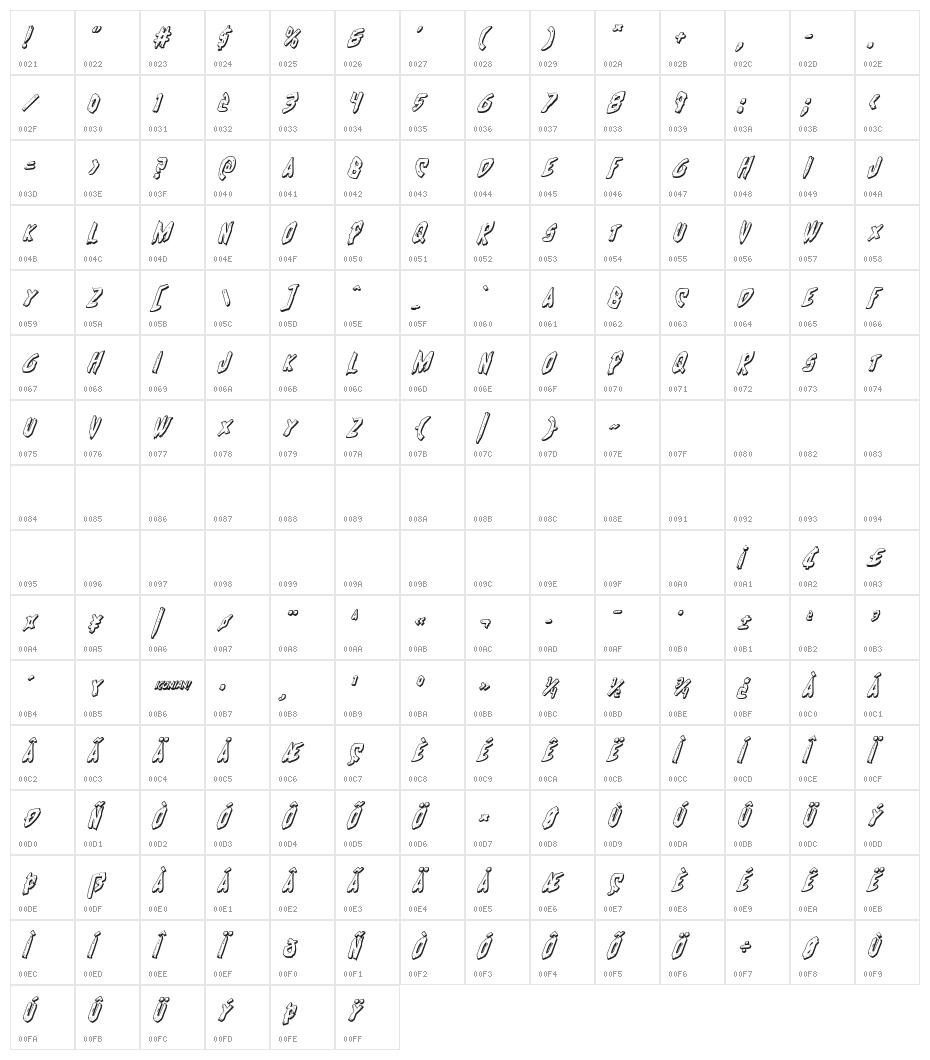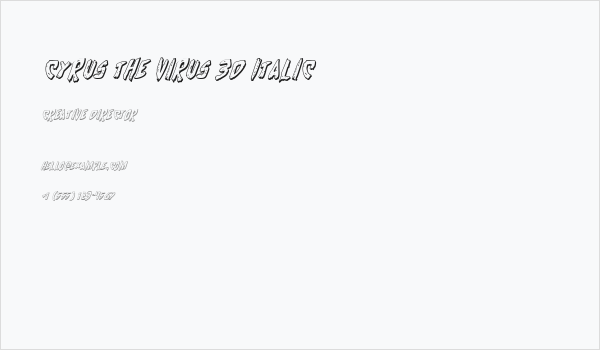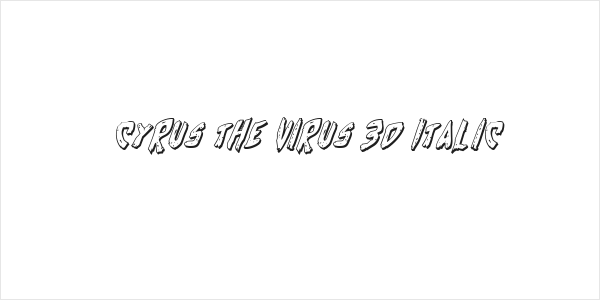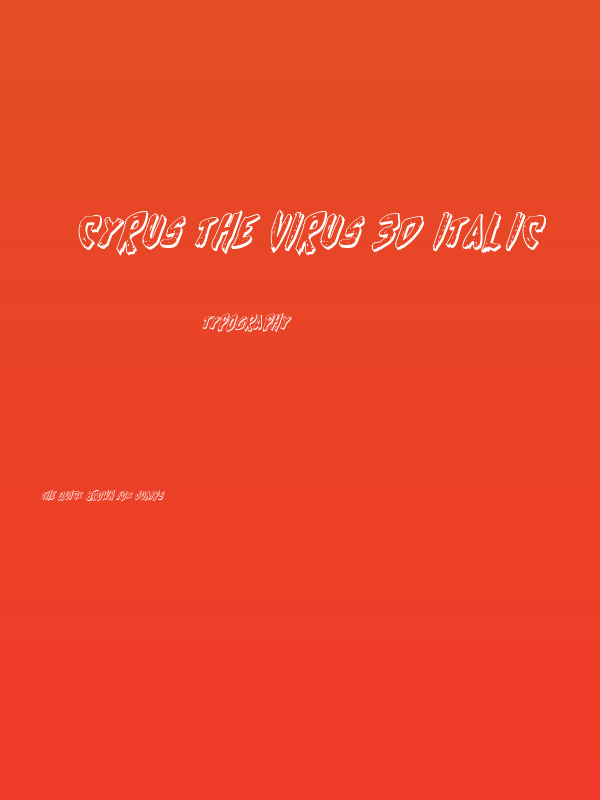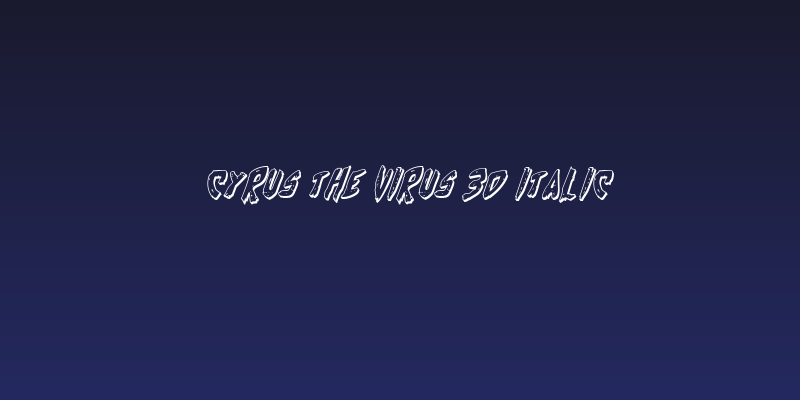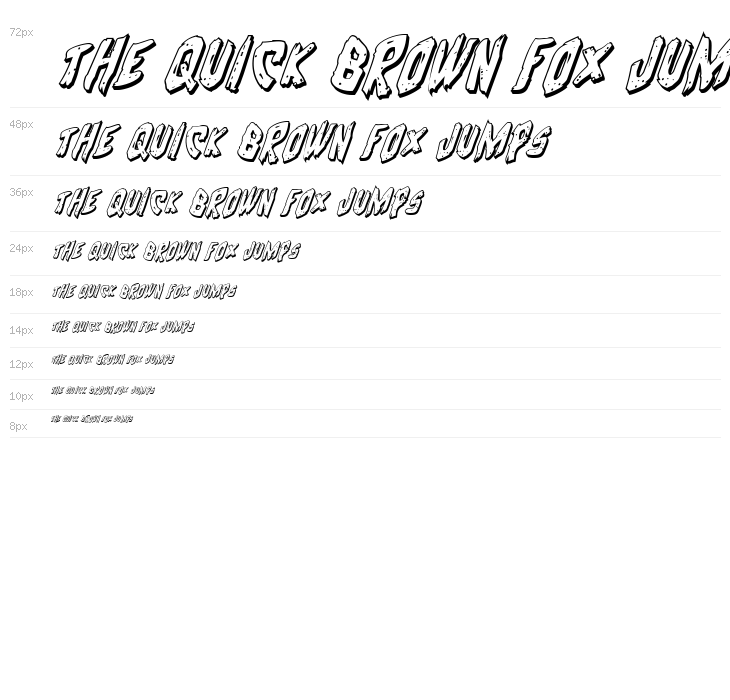
Cyrus the Virus 3D Italic Font
Cyrus the Virus 3D Italic Description
This font features a bold and dynamic 3D effect, giving each character a sense of depth and movement. The italicized style enhances its energetic and edgy appearance, making it stand out with a graffiti-like flair. The letters are slightly slanted, adding to the sense of motion and urgency. The rough, textured edges contribute to a rugged and rebellious aesthetic, perfect for designs that aim to capture attention and convey a sense of boldness. The numerals and special characters maintain this consistent style, ensuring a cohesive look across all text elements.
| Overall Style | Modern, Urban |
| Proposed Projects | Ideal for street art designs, edgy posters, music album covers, and urban-themed branding. |